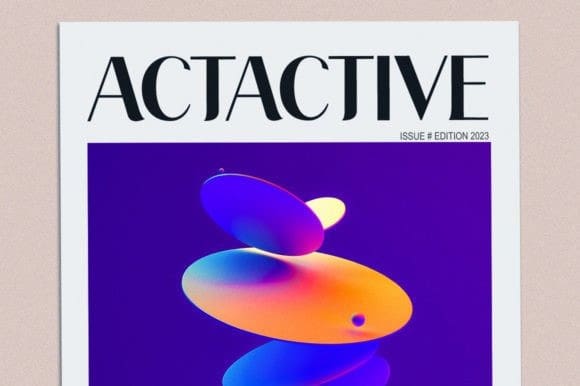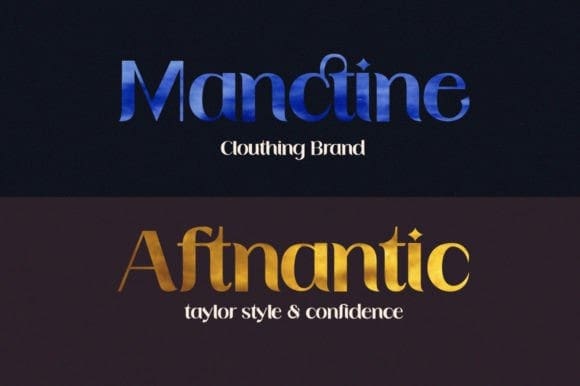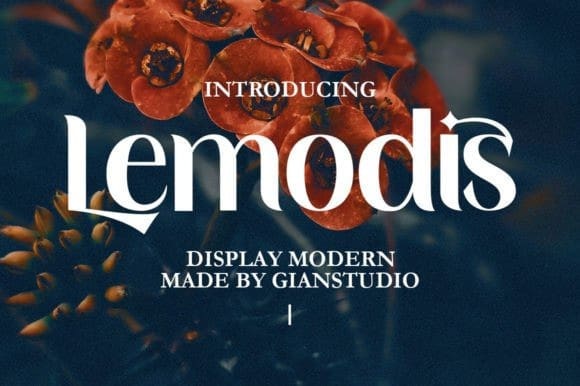
Lemodis Font
Lemodis Font is a cool and modern display font. No matter the topic, this font will be an incredible asset to your fonts’ library, as it has the potential to elevate any creation.